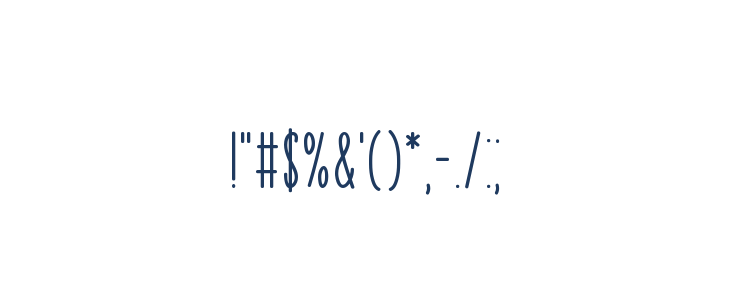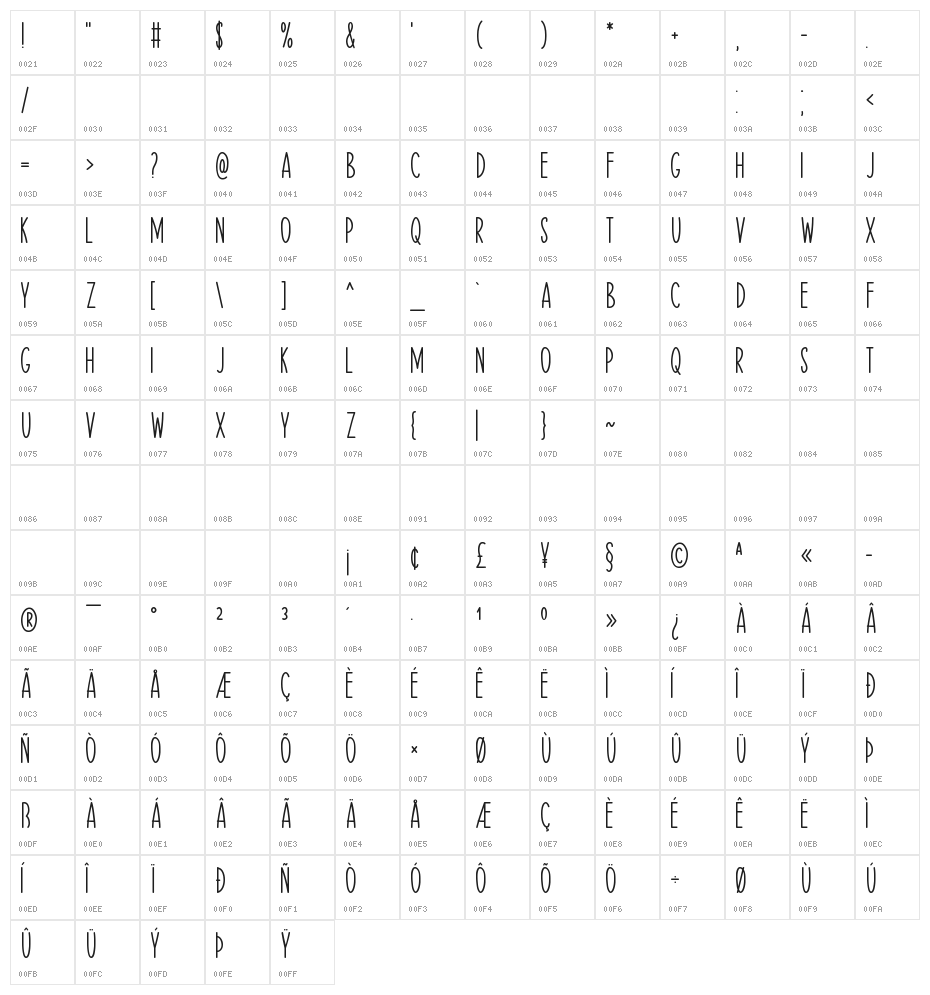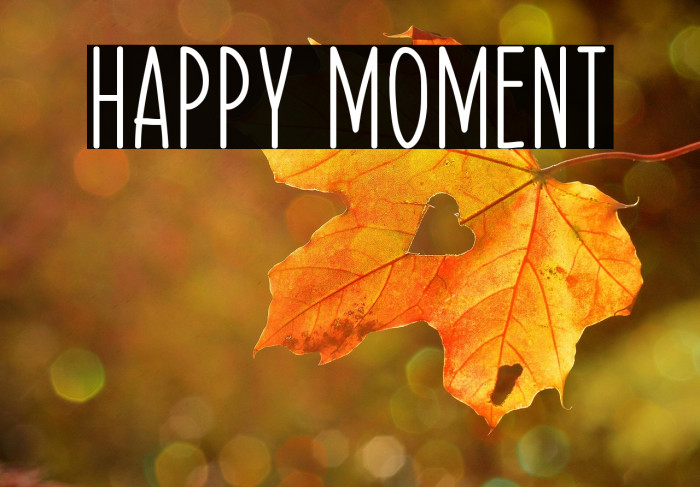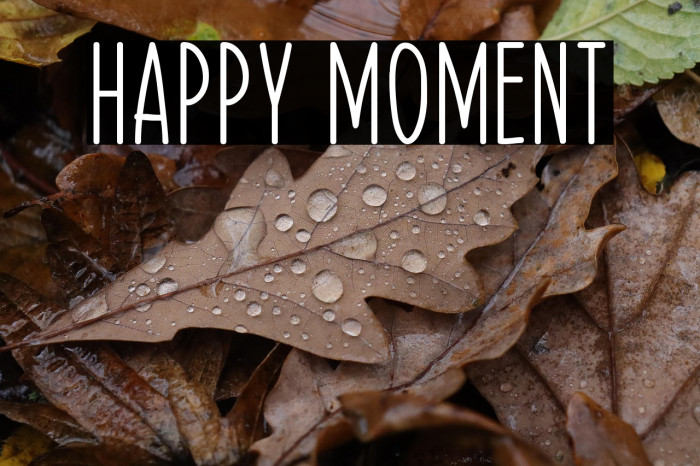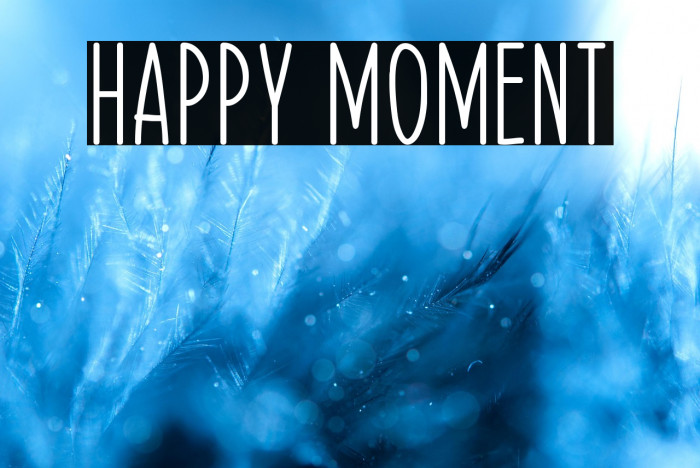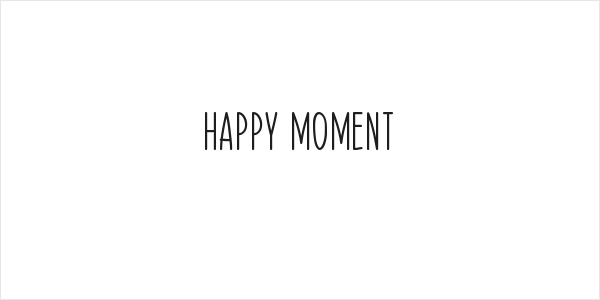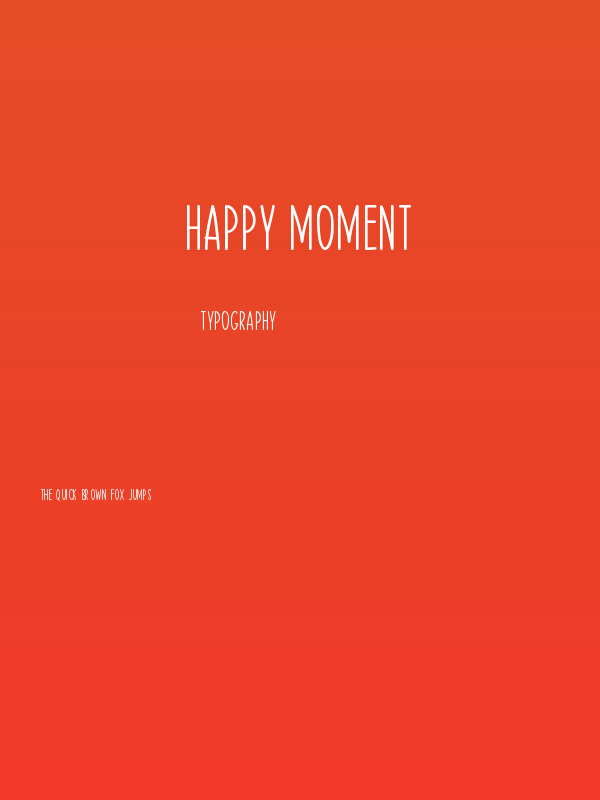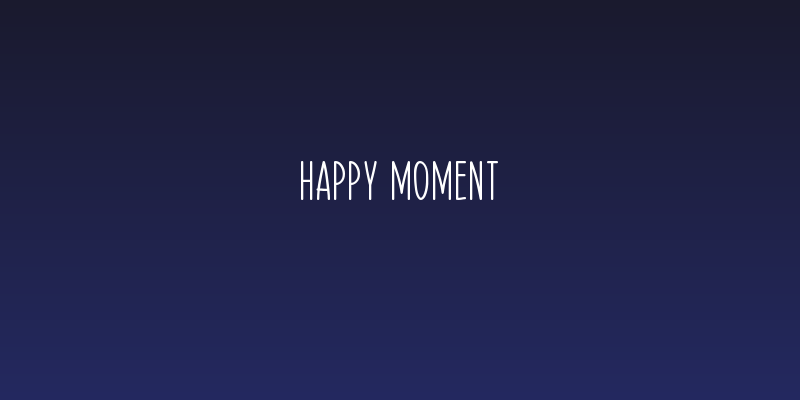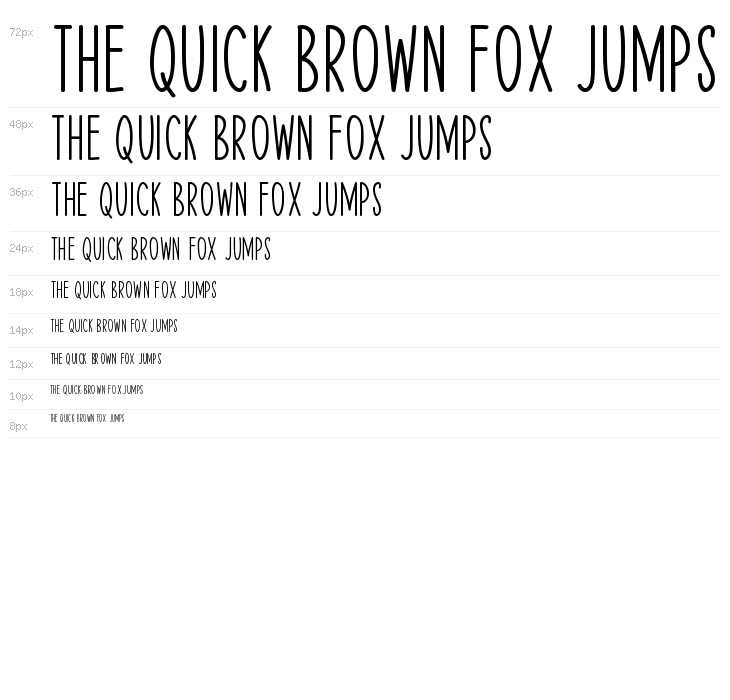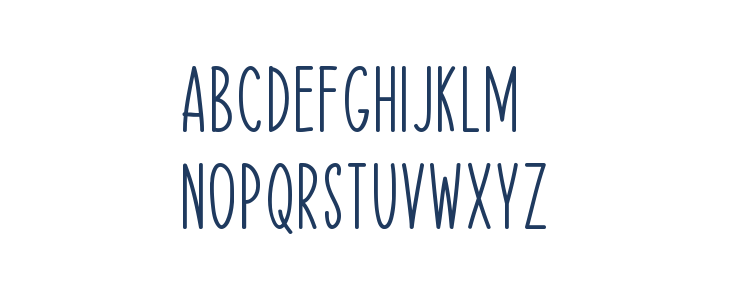
Happy Moment Font
Happy Moment Description
This font features a playful and casual style with tall, narrow characters that convey a sense of fun and approachability. The strokes are consistent in width, giving it a clean and uniform appearance. The uppercase and lowercase letters maintain a cohesive look, while the special characters add a whimsical touch. The font's simplicity and legibility make it suitable for various creative projects, offering a friendly and inviting aesthetic.
Overall StylePlayful
Proposed ProjectsIdeal for children's books, greeting cards, playful branding, and social media graphics.